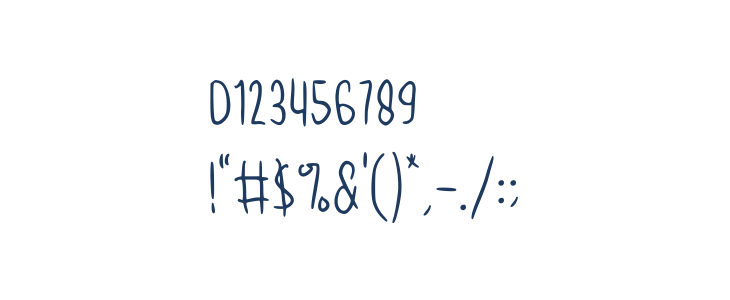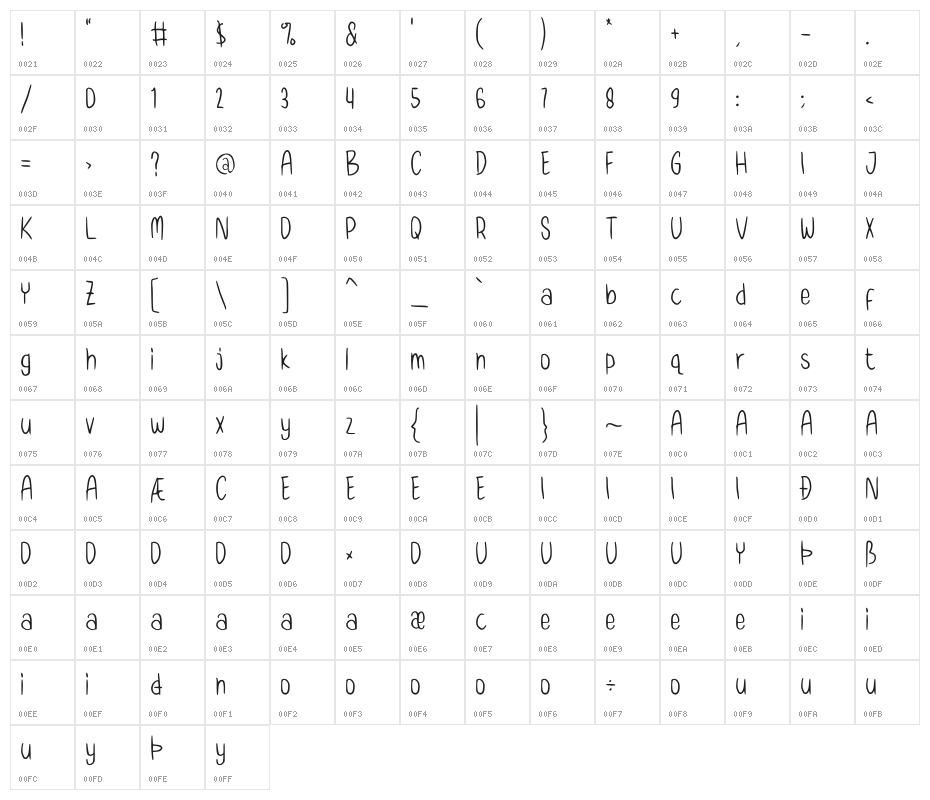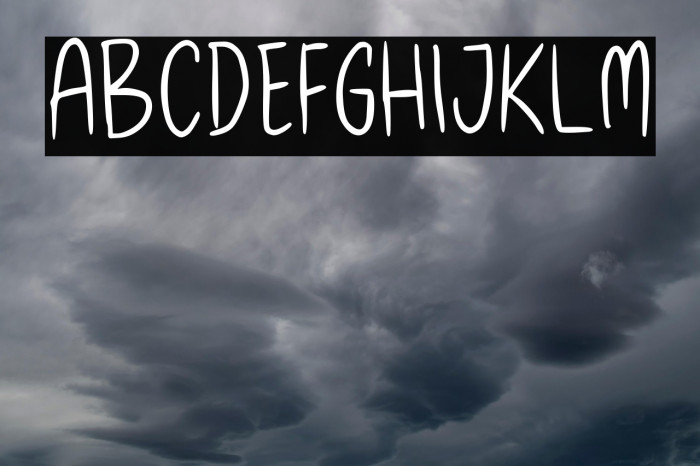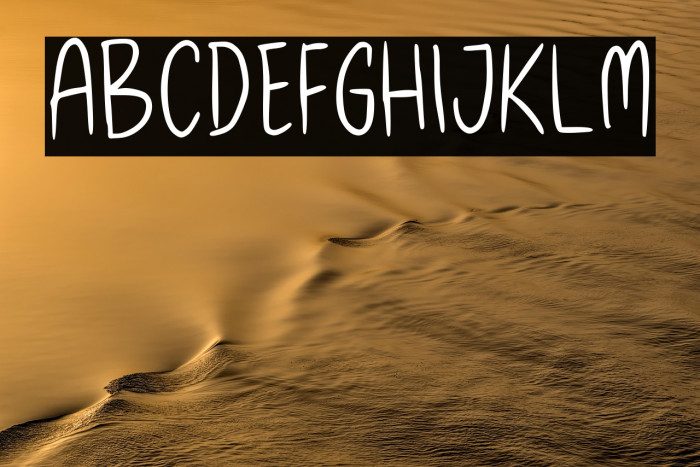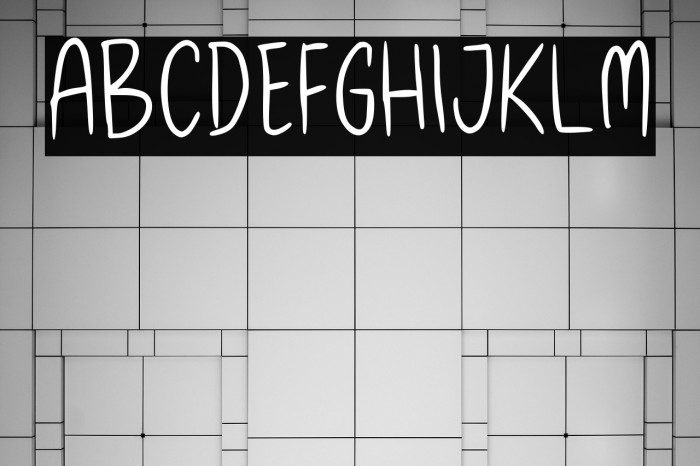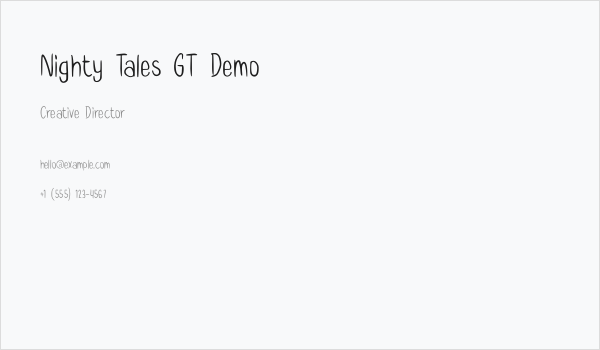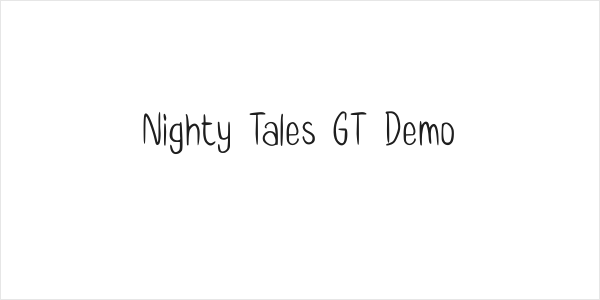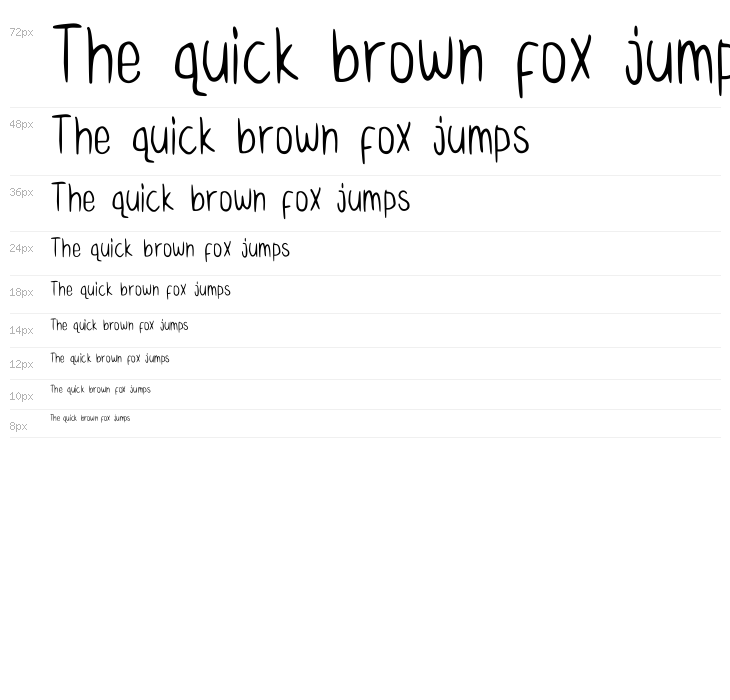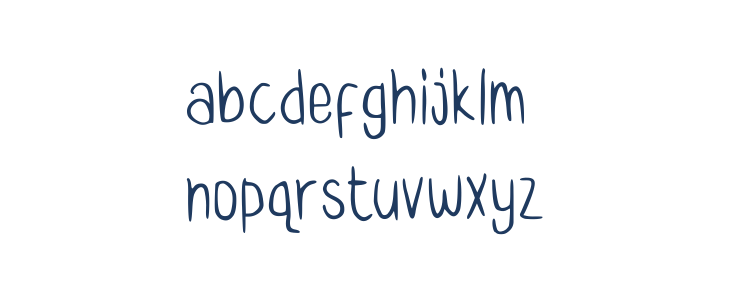
Nighty Tales GT Demo Font
Nighty Tales GT Demo Description
This playful and whimsical font features a handwritten style with a casual and friendly appearance. The characters are slightly irregular, giving them a natural and organic feel. The uppercase and lowercase letters are well-balanced, with a consistent stroke width that maintains readability. The numbers and special characters complement the overall style, making it versatile for various design needs. Its unique charm makes it suitable for projects that require a personal touch or a fun and engaging aesthetic.
| Proposed Projects | Ideal for children's books, greeting cards, playful branding, and casual invitations. |